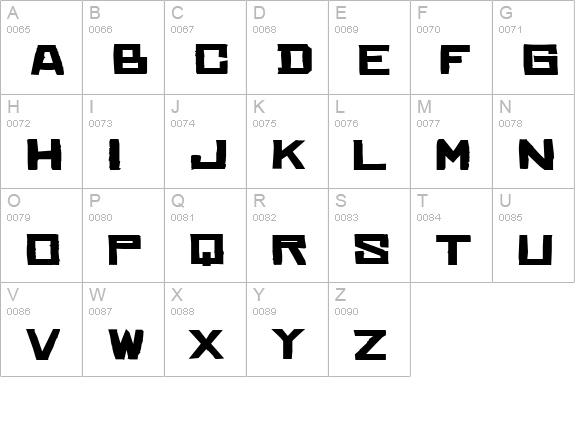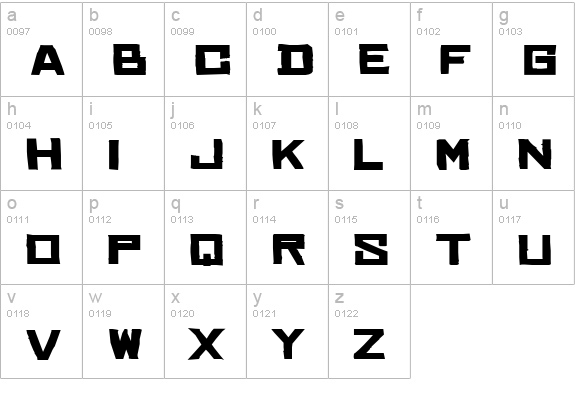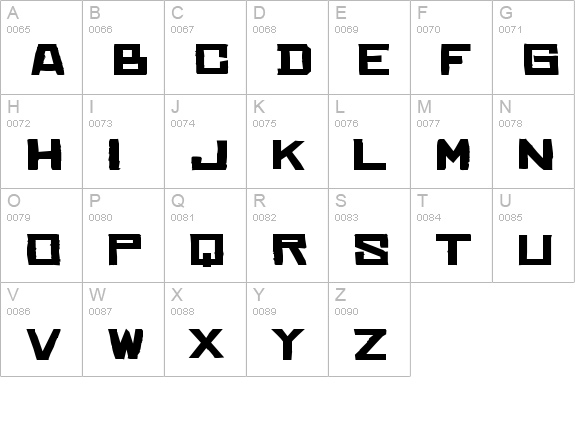
Chinese Rocks Fat Font Details
Chinese Rocks Fat font is a bold and eye-catching typeface that exudes a sense of strength and modernity. Its thick lines and unique design make it perfect for making a statement in headlines, logos, posters, and more. This font is versatile and can be used for a variety of projects that require a bold and impactful look. What's even better is that Chinese Rocks Fat font is available for free download at FontsMarket.com. This means that you can easily access this stylish font and incorporate it into your design projects without any cost. Don't miss out on this opportunity to enhance your designs with the striking Chinese Rocks Fat font. Download it now and let your creativity shine!